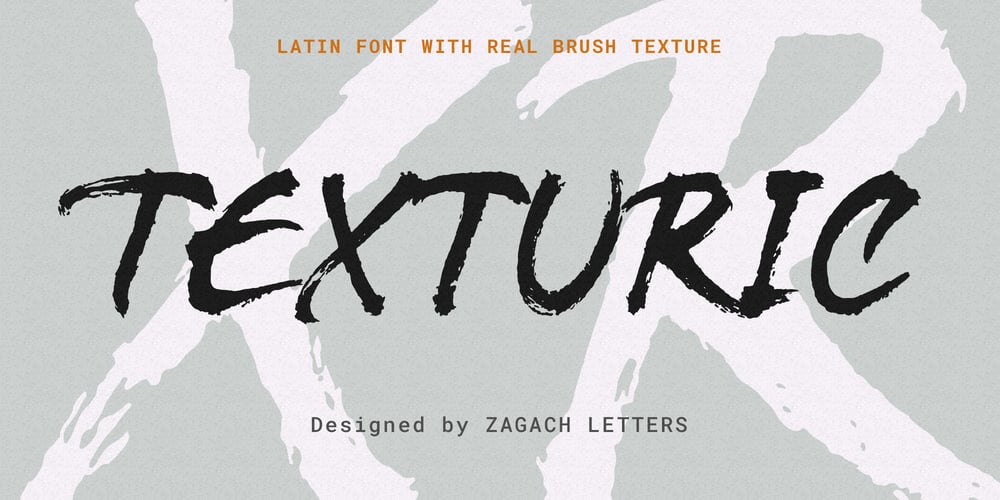
Texturic Font Family was designed by Yuriy Zahachevskyy and published by Zagach Letters. Texturic contains 1 styles and family package options. Texturic is a handwritten brush script with natural hand brushed strokes to give your design realistic and natural look. Texturic has a variety of coded features to create unique text designs. Stylistic alternates for all letters and numerals, contextual alternates and swashes, which makes your designs to look more natural. It is perfect for titles, headlines, greeting cards, stationery design, packaging, magazines, posters and more. Multilingual support. Extended Latin character base that covers most European languages.